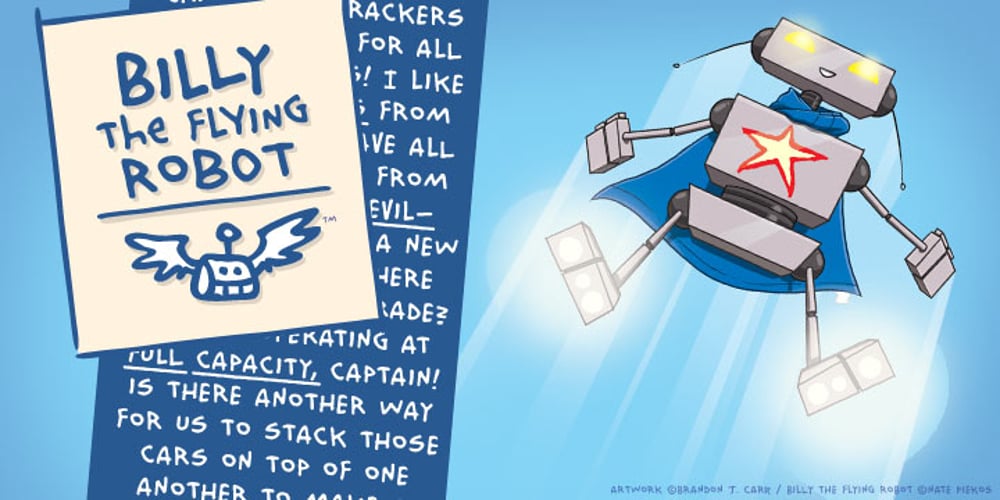
Billy The Flying Robot BB Font Family was designed by Nate Piekos and published by Blambot. Billy The Flying Robot BB contains 12 styles and family package options. BILLY THE FLYING ROBOT BB is the latest in Nate Piekos’ series of “indie” comic book fonts. Loose, casual and fun, Billy comes with Uppercase, Uppercase Bold, Uppercase Underline, Lowercase Bold, and Lowercase Underline. As usual, the family contains a plethora of European characters and the Opentype Uppercase fonts have autoligatures!